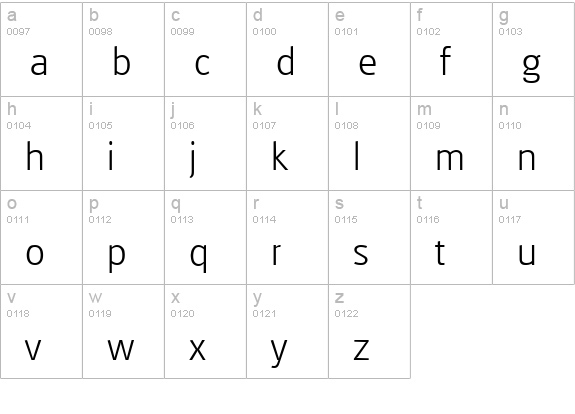
Goudita Sans Light SF Font Details
Goudita Sans Light SF is a refined, elegant variant in the Goudita typeface family \xE2\x80\x94 well suited to elegant body text, refined sub-headings, and luxury branding.
Goudita Sans Light SF font is a modern and elegant typeface that exudes sophistication and versatility. With its clean lines and minimalistic design, this font is perfect for a wide range of design projects, from branding to editorial design. The light weight of the font gives it a delicate and airy appearance, making it ideal for creating a sense of elegance and refinement in your designs. What sets Goudita Sans Light SF font apart is that it is not only visually appealing but also incredibly versatile. Whether you are designing a logo, creating a website, or working on a print project, this font will add a touch of sophistication to your work. Its timeless design ensures that it will remain relevant for years to come. And the best part? Goudita Sans Light SF font is available for free download at FontsMarket.com. So you can enhance your design projects with this beautiful and versatile font without breaking the bank. Download Goudita Sans Light SF font today and take your designs to the next level!